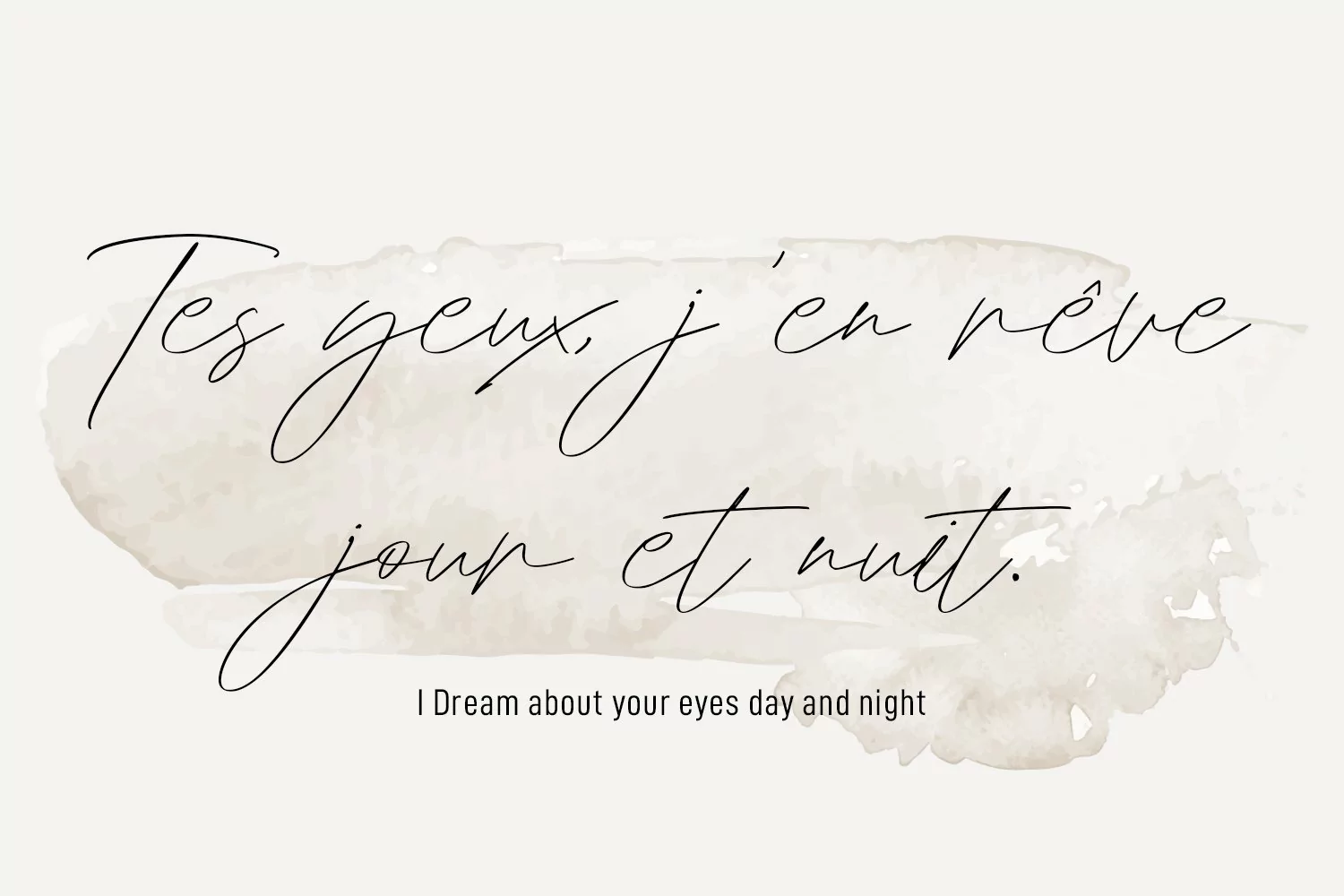
Eureka Springs is a chic signature style script font. With contrast thin stroke, slanted and fun character with a bit of ligatures. To give you an extra creative work. Eureka Springs font support multilingual more than 100+ language. This font is good for logo design, Social media, Movie Titles, Books Titles, a short text even a long text letter and good for your secondary text font with sans or serif. Make a stunning work with Eureka Springs font.